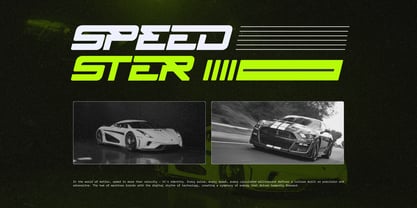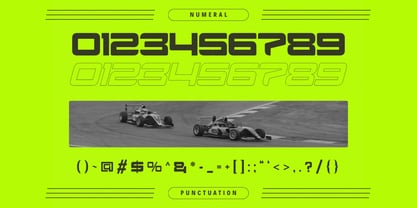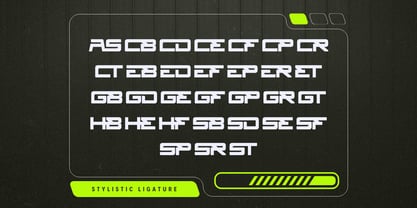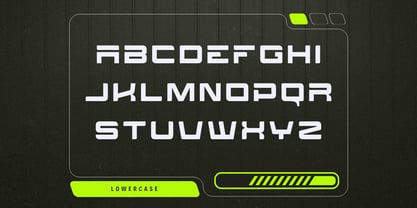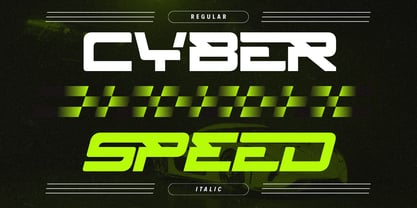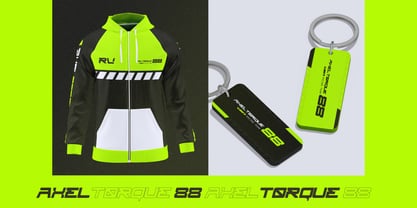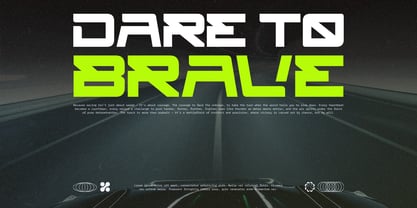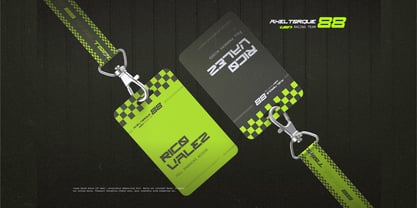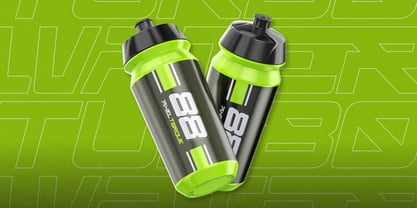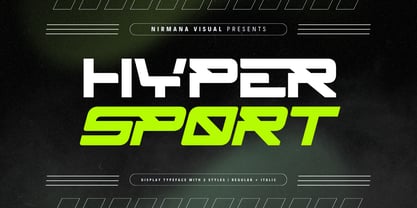
Hyper Sport
by Nirmana Visual
The Hyper Sport Font Family was designed by Sigit Dwipa and published by Nirmana Visual. Hyper Sport contains 2 styles and family package options. More about this family
Hyper Sport is a dynamic display font built for speed, power, and precision. Designed for sport, racing, car, and techno branding, it captures the energy of motion with bold lines and futuristic curves. The regular style delivers a strong, stable presence perfect for logos and titles, while the italic version adds forward momentum—ideal for designs that need an extra sense of speed and performance. Perfect for motorsport teams, automotive brands, event posters, and modern tech visuals, Hyper Sport brings an energetic and competitive edge to your typography.
Designers: Sigit Dwipa
Current Foundry: Nirmana Visual